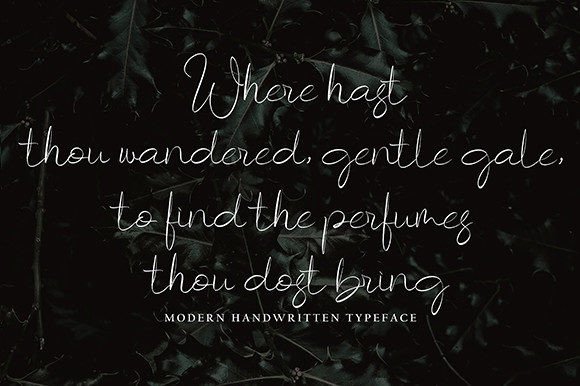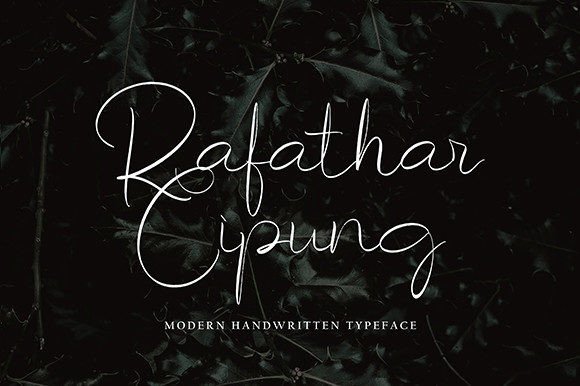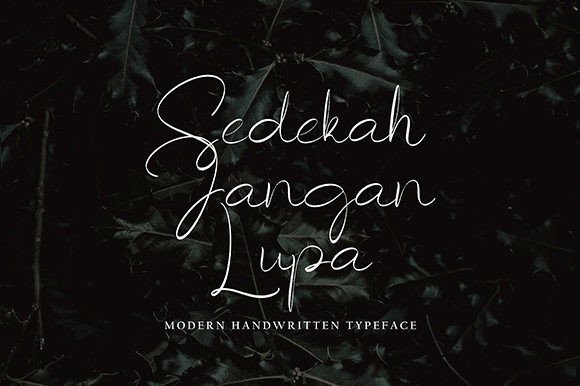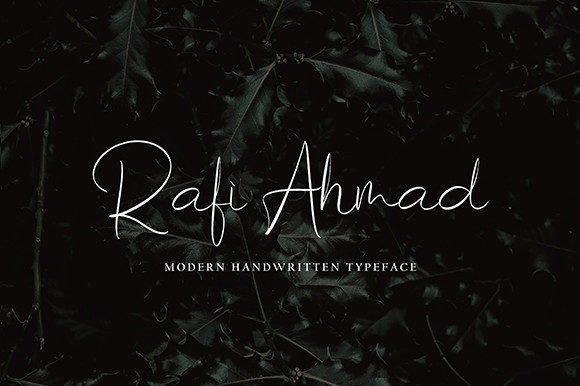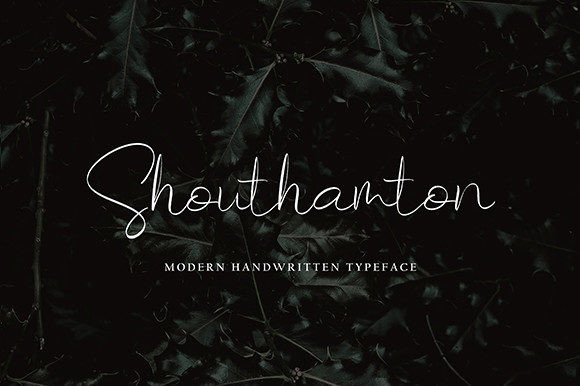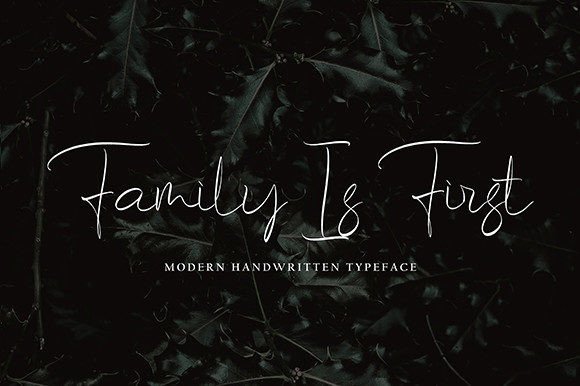
Introduction to Saborasa Font
SaboRasa is a delicate and elegant handwritten font.
| 👤 Author | Pineungtype & Missinklab |
Its distinct and well-balanced letters make this font a masterpiece Fall in love with its incredibly versatile style and use it to create spectacular designs.
Key Features of Saborasa Font